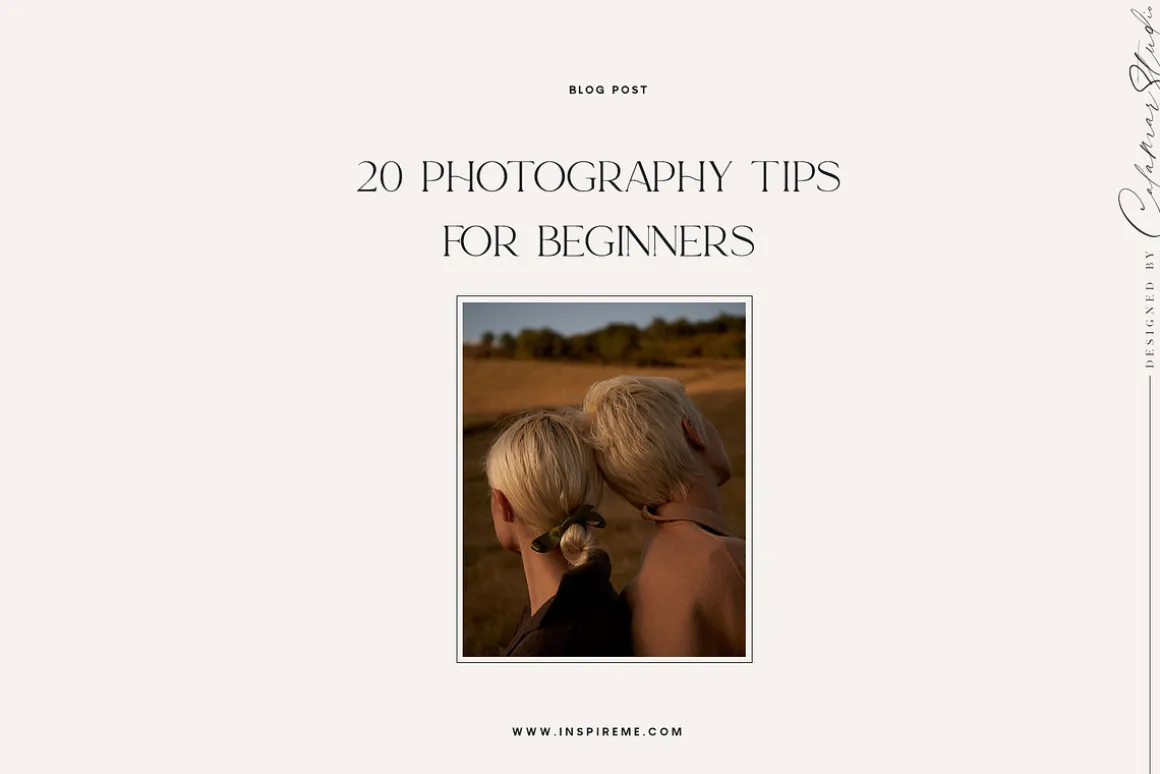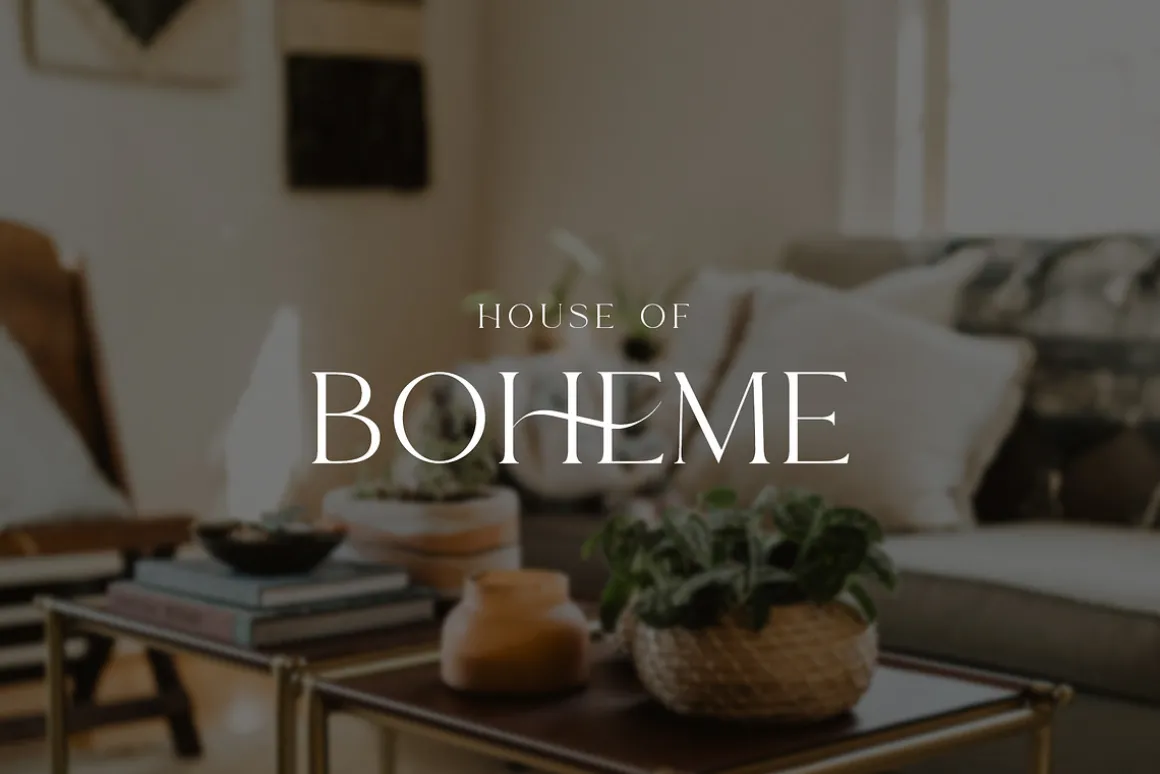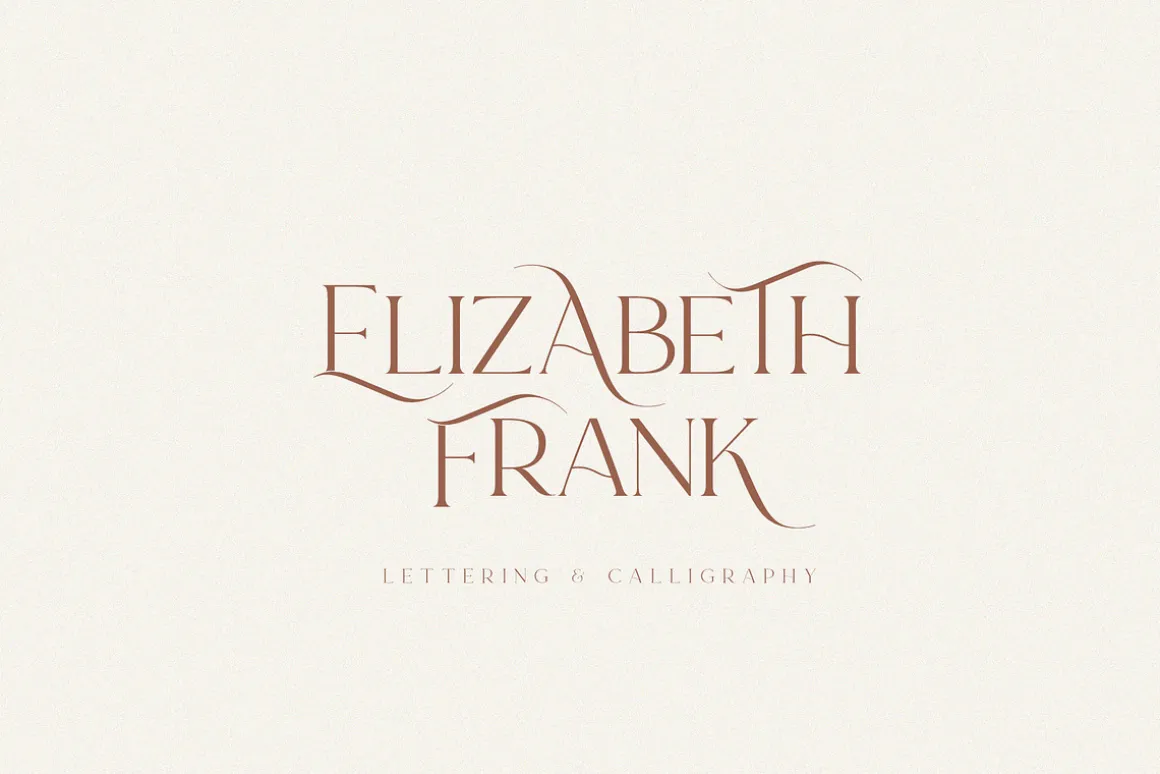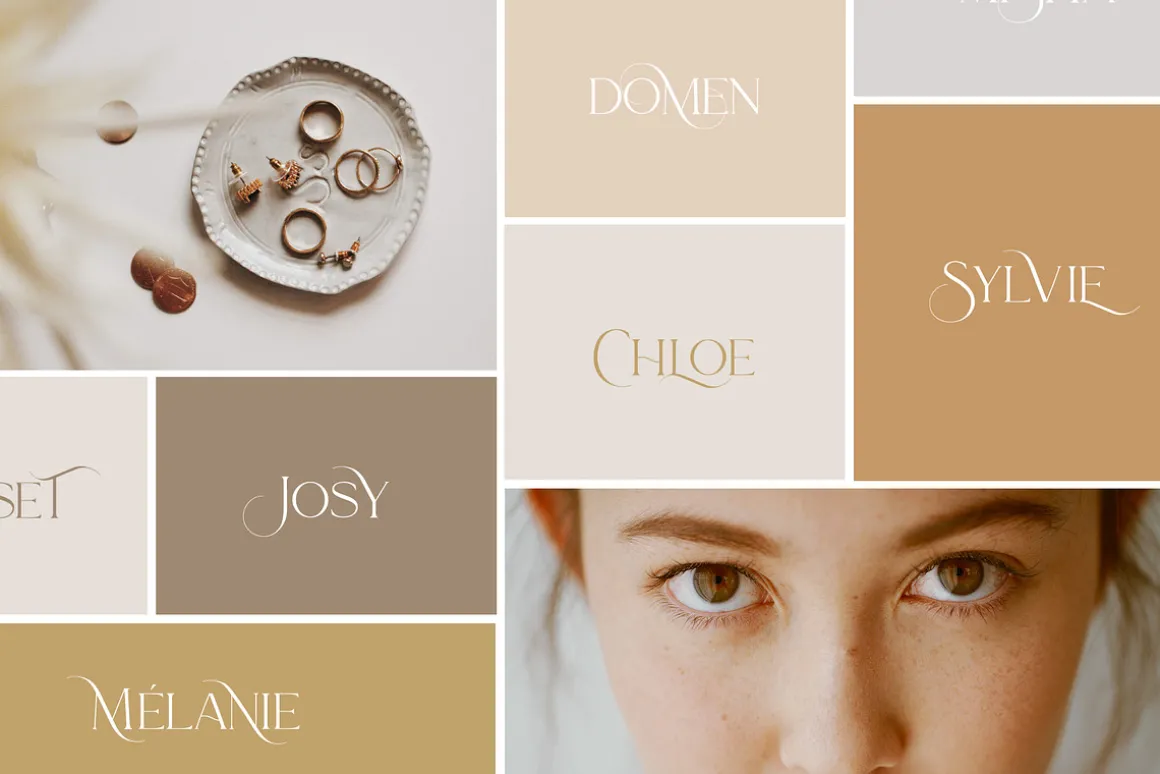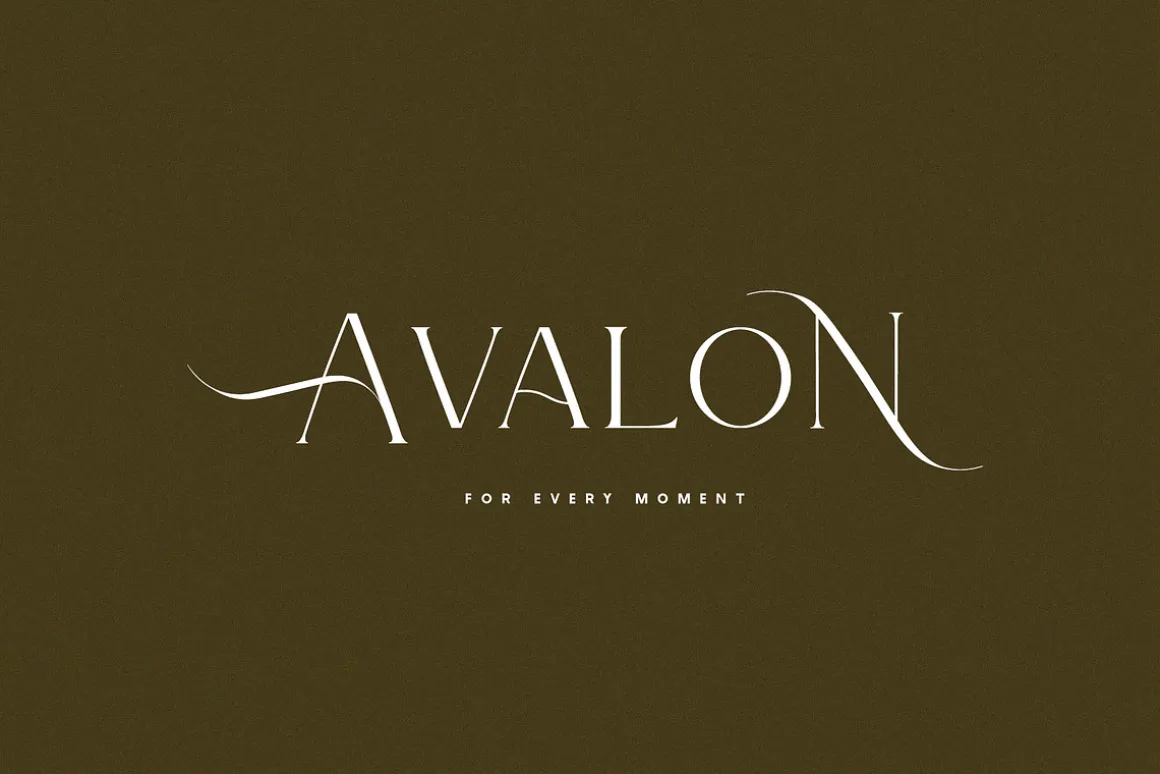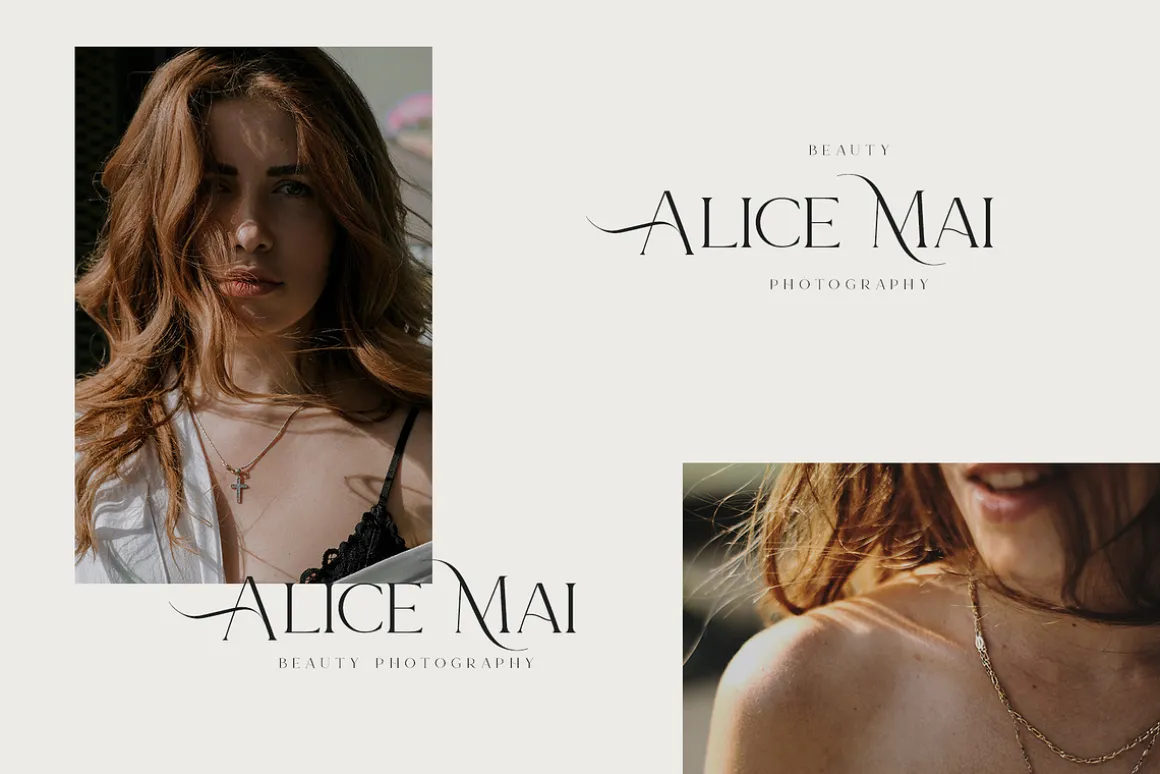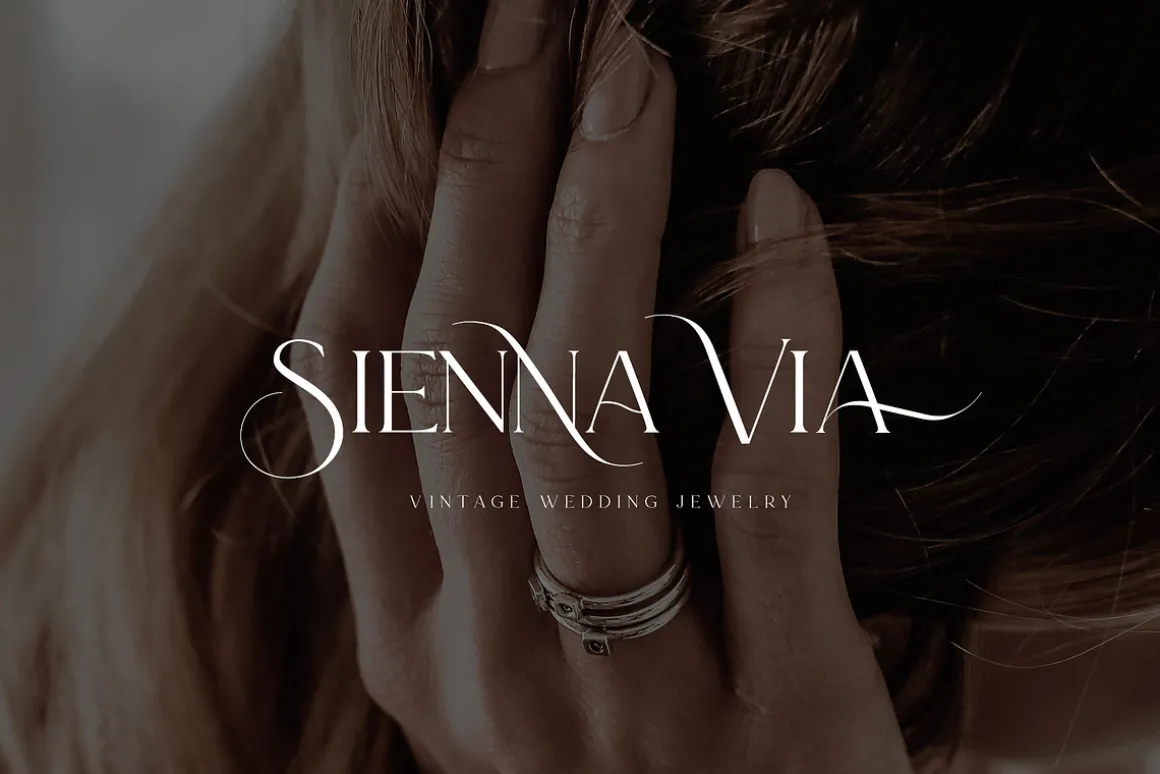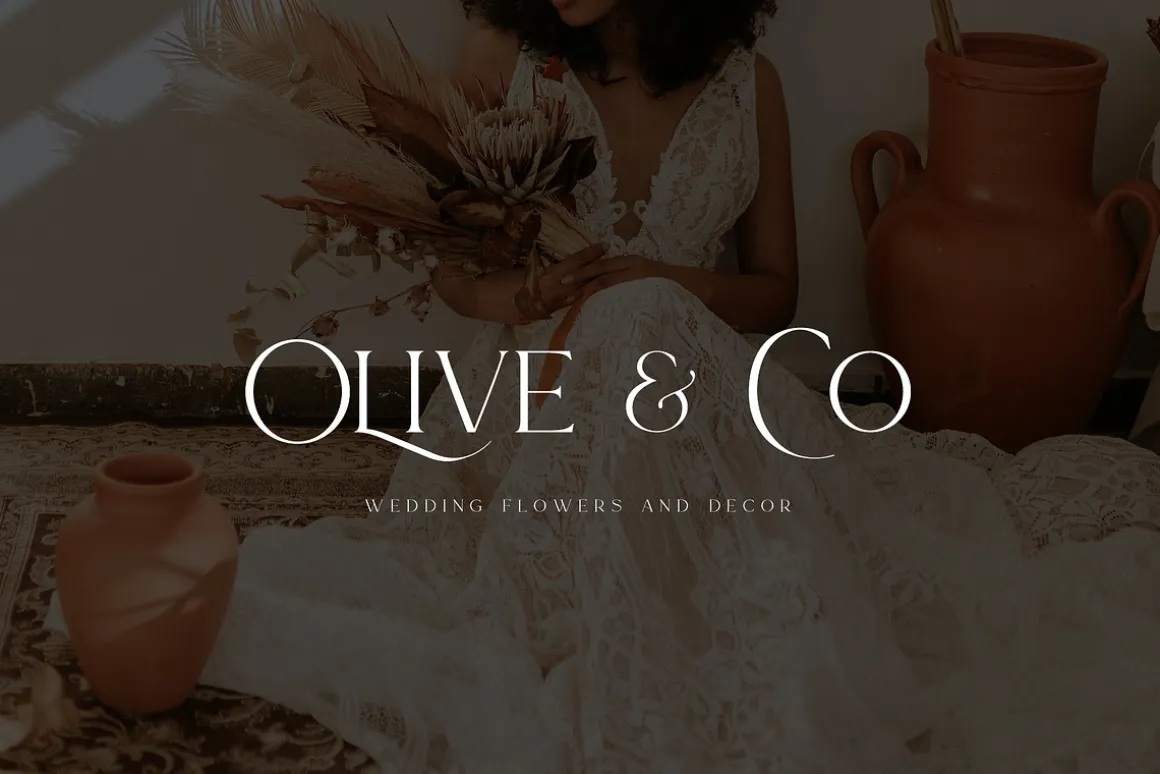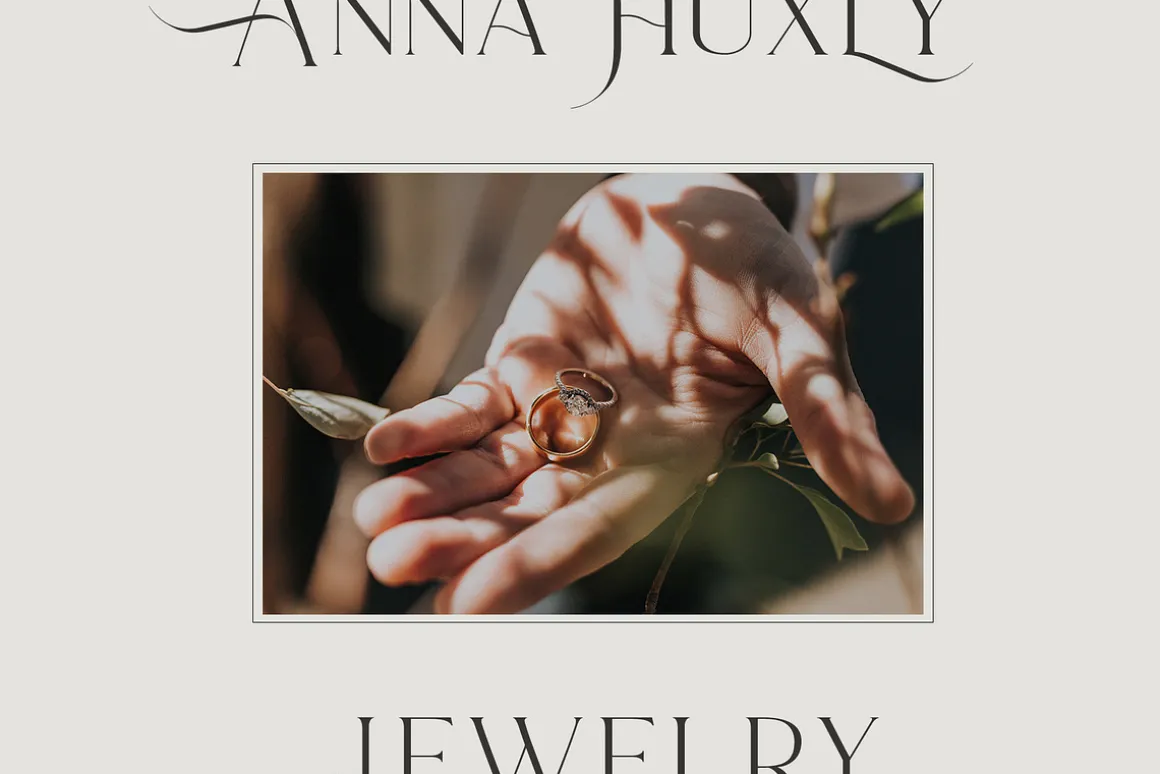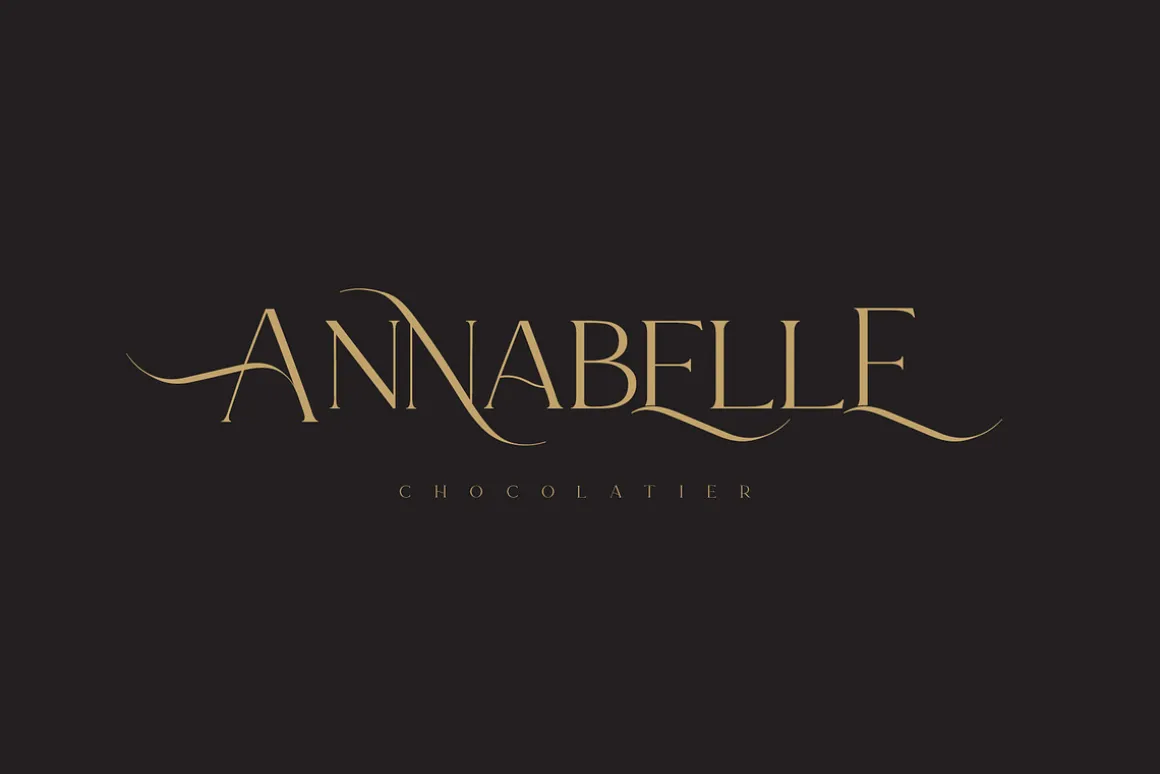
Le Major is my new elegant serif font that will bring in your projects a touch of luxury and style. It’s perfect match for logotypes, branding, wedding monograms and invitations, blog headlines and much more. Flip through all the previews and get inspired like I was while creating this font.